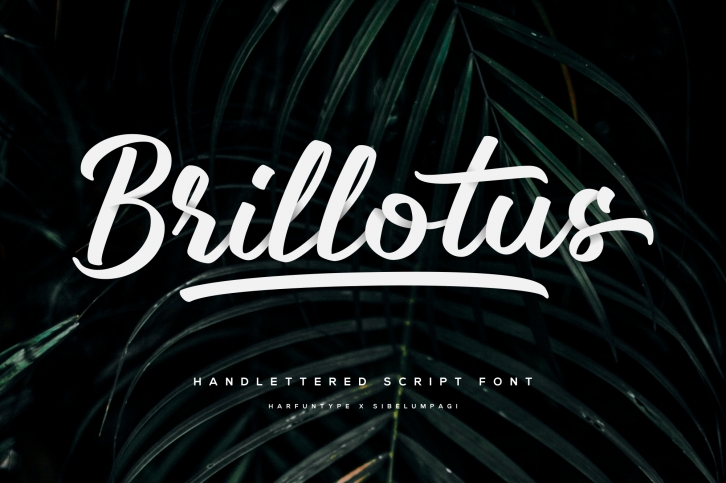
Brillotus is a beautiful font that was designed by Sibelumpagi Studio. It's a great choice for designers and creatives who need such a font. It was released on June 23, 2019 and the file size is 2.43 MB. Brillotus may give a more youthful, expressive and casual look to your project. It is a very beautiful, refined, elegant, and high-quality font.